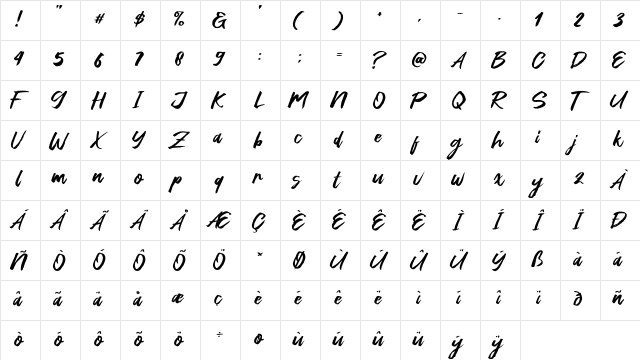
Green Fonte Regular
Design Context for Green Fonte Typeface
Green Fonte is a composed and adaptable typeface that performs quietly and consistently across a wide range of design contexts.